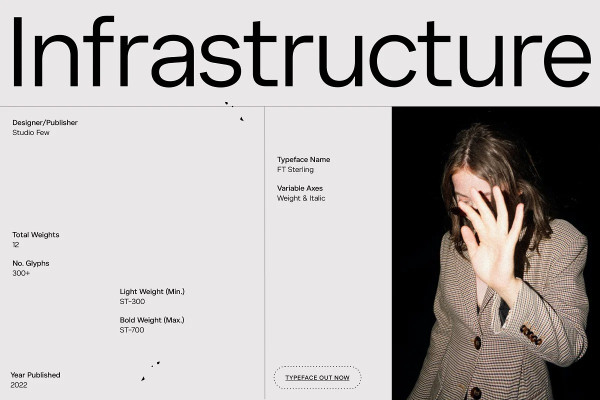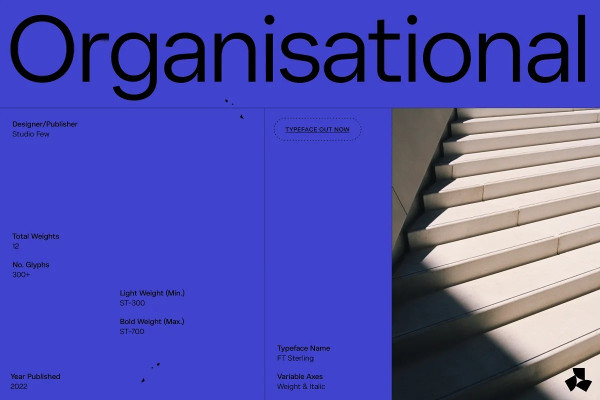
Sterling Font
Sterling Font is a functional sans-serif font family that includes open character openings, a uniform distribution of white and black, and excellent readability. The general neutrality of the font patterns is not without elegance, and all the details of the typeface are crafted with mathematical precision and love. Concieved as a hybrid between Grotesk & Humanist, Sterling pairs legibility with character.